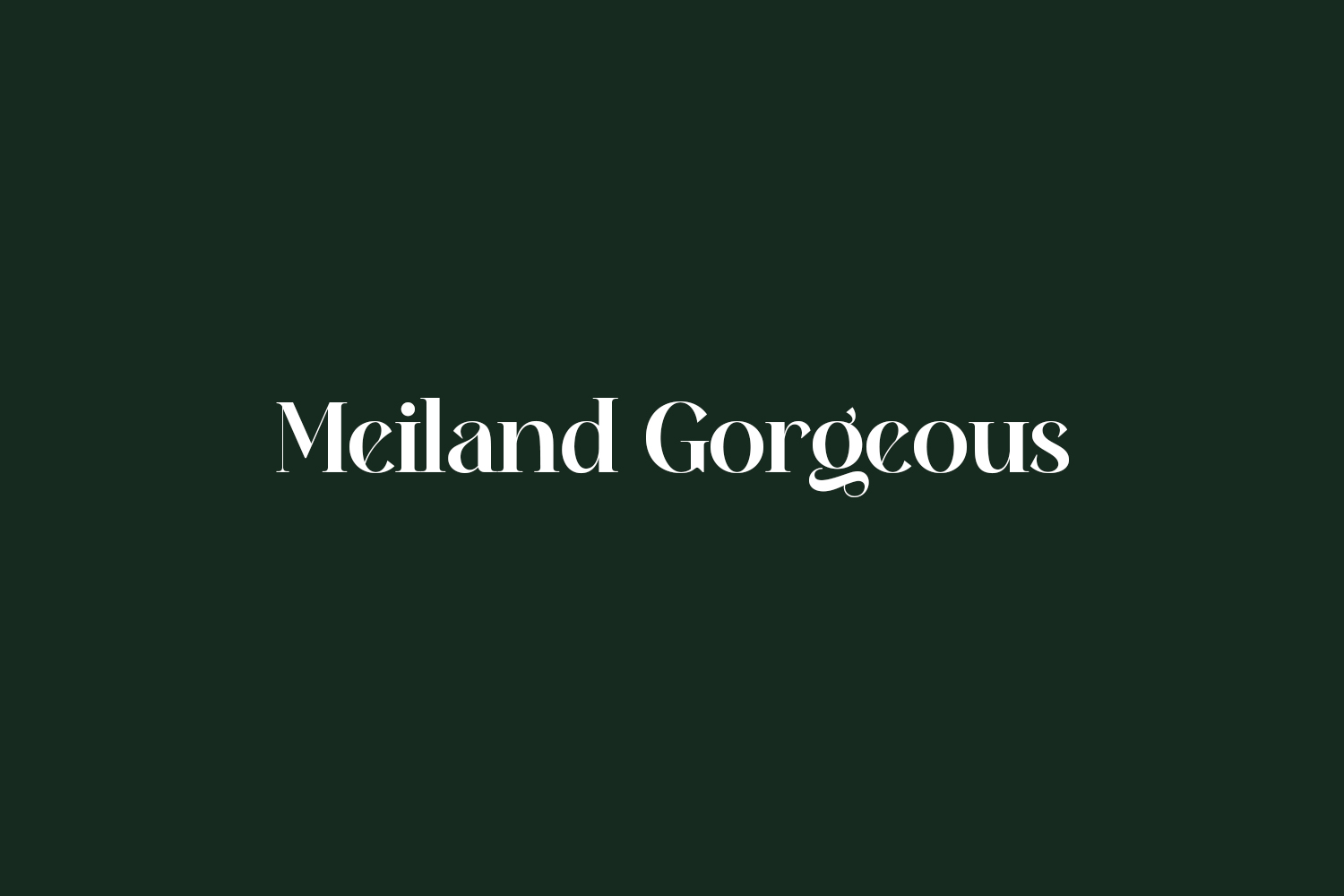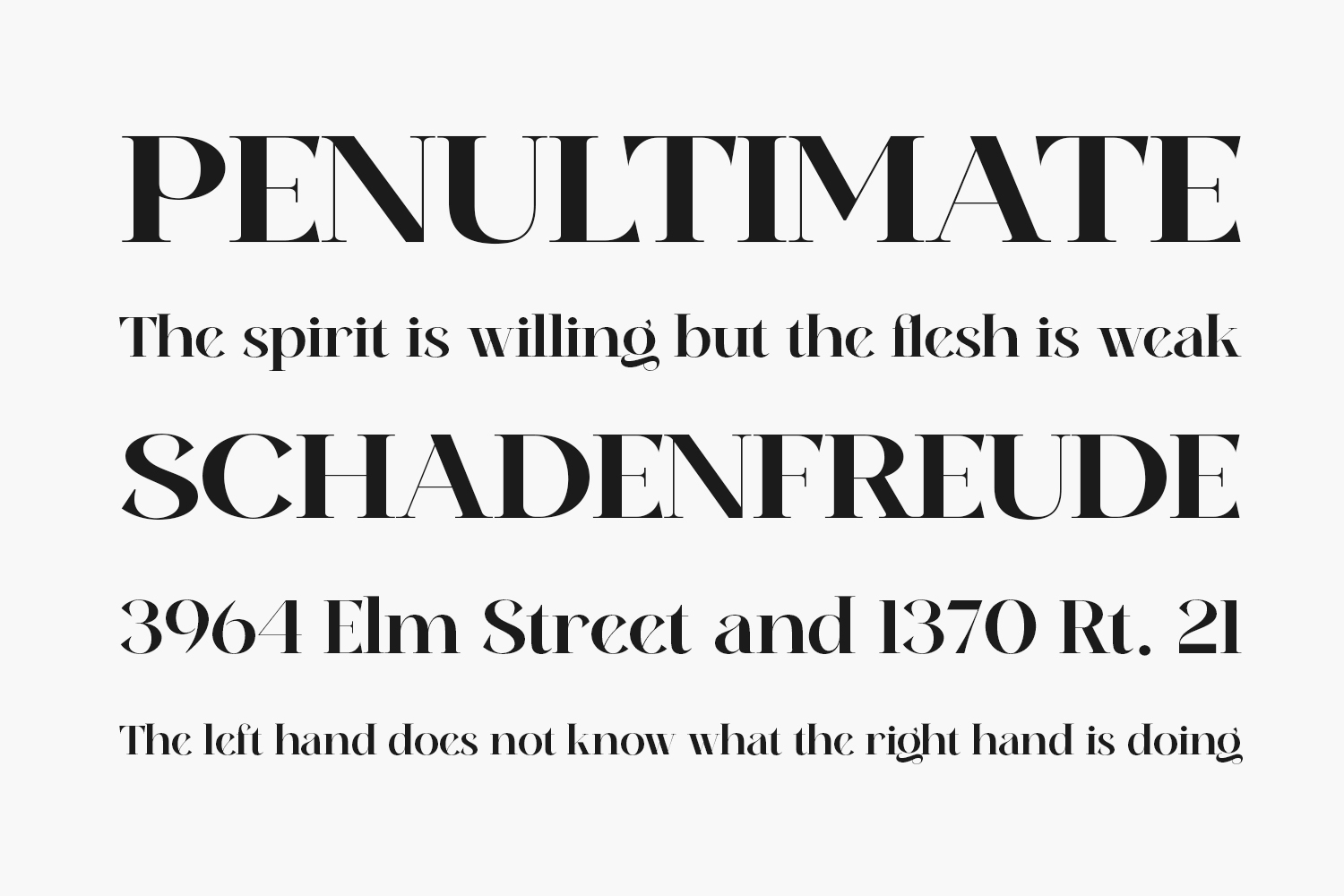
Meiland Gorgeous Free Font is a bold yet distinct serif font. No matter the topic, this font will be an incredibly asset to your fonts’ library, as it has the potential to elevate any creation. Meiland Gorgeous Free Font was designed by Handpik and is free for personal use only. Please purchase the full version for commercial use.